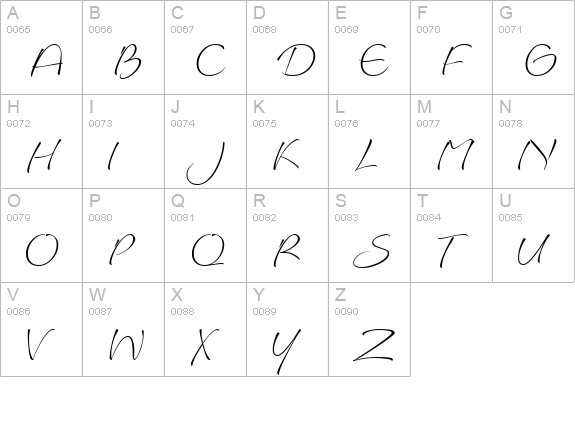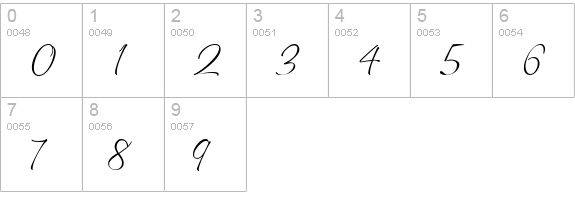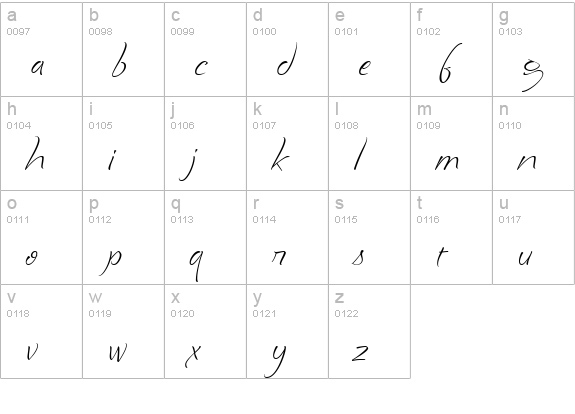
Dulcimer JF Font Details
Dulcimer JF is a charming and elegant font that exudes a sense of sophistication and creativity. With its unique and stylish letterforms, this font is perfect for adding a touch of class to any design project. The smooth curves and delicate lines of Dulcimer JF create a harmonious and pleasing visual experience that is sure to captivate your audience. What sets Dulcimer JF apart is not only its beauty but also its accessibility. This font is freely available to download at FontsMarket.com, making it easy for anyone to add a touch of elegance to their designs. Whether you're designing a wedding invitation, a logo, or a branding project, Dulcimer JF is a versatile and timeless choice that will elevate your work to new heights. Embrace the beauty of Dulcimer JF and let its graceful and sophisticated charm inspire your next creative endeavor. Download this exquisite font today and bring a touch of luxury to your designs.